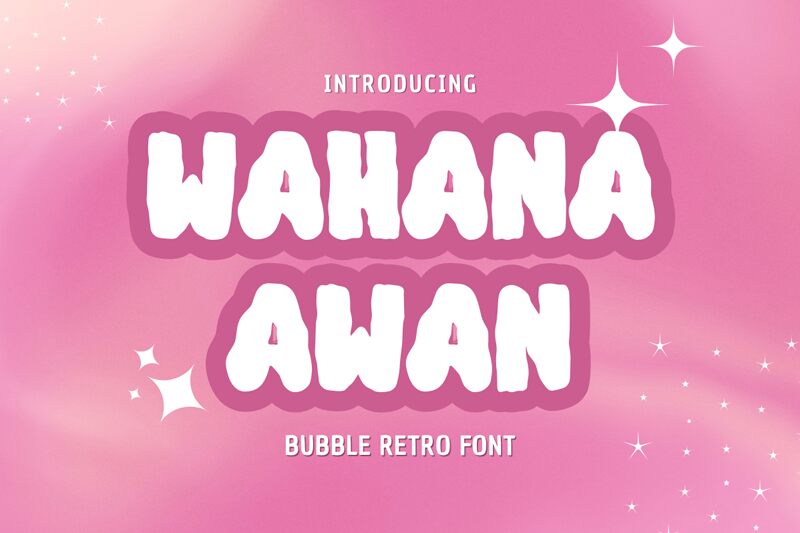
Wahana Awan font, designed by Muhammad Afif, is a captivating display font that exudes playful charm and bold expression. Its cartoon style is immediately eye-catching, with a robust and adventurous persona that's perfect for bringing designs to life. The exaggerated boldness of this free font makes it ideal for projects needing a fun and animated touch, such as children's books, posters, or whimsical branding materials.
With its distinctive flair, Wahana Awan invites creativity while maintaining readability. Designers looking to download a font that marries whimsy with impact will find Wahana Awan an irresistible choice. Whether crafting imaginative graphics or unique print layouts, this font promises to elevate visual storytelling in exciting ways.
Wahana Awan